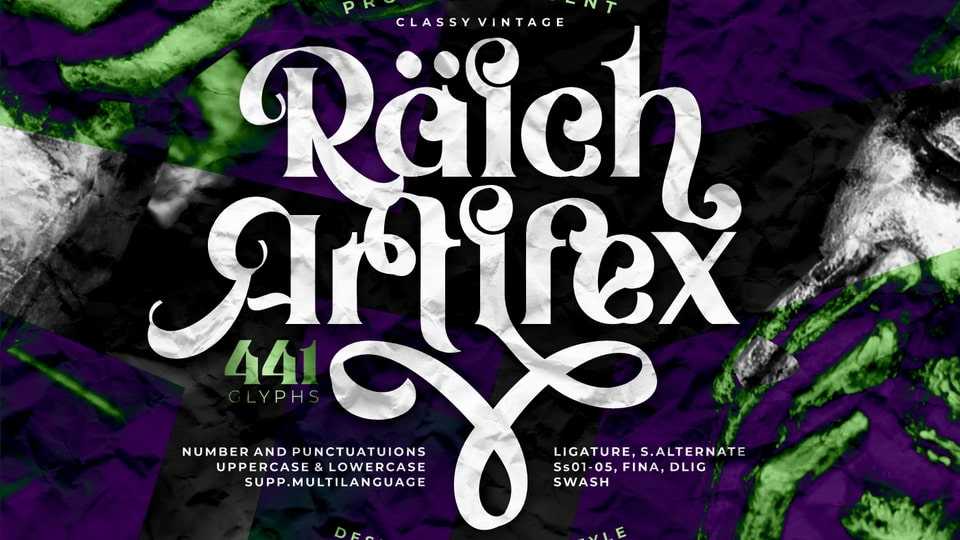
Download Raich Artifex font, a decorative typeface with a classic look that takes us back to the royal era. Serif font with a classic stylist shape and has a variety of letter shapes to beautify the writing